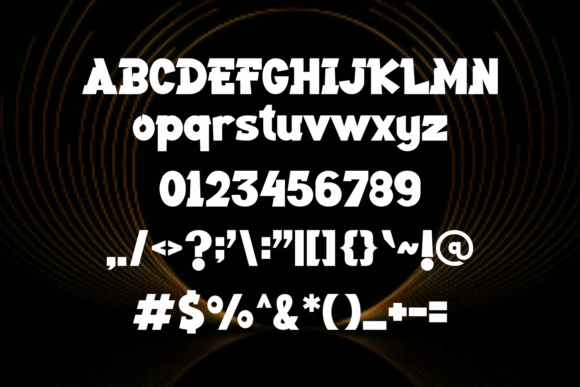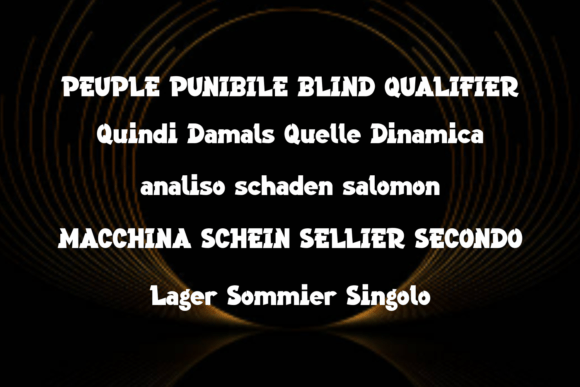
Introduction to Remils Font
Remils is a cool and bold sans display font.
Add this chunky lettered font to your designs and notice how it makes them come alive .
Why Choose Remils Font?
Remils Font offers exceptional quality and versatility, making it a valuable addition to your design toolkit. Whether you’re creating for personal projects or commercial use, Remils Font delivers professional results.